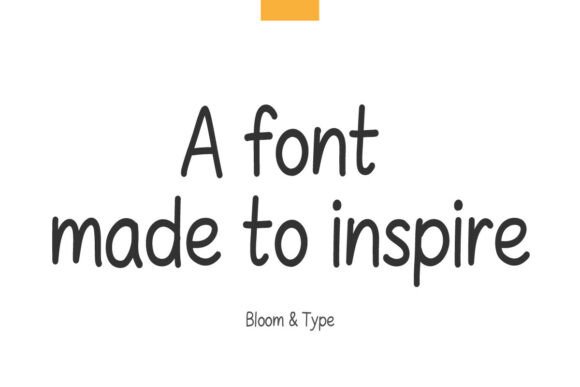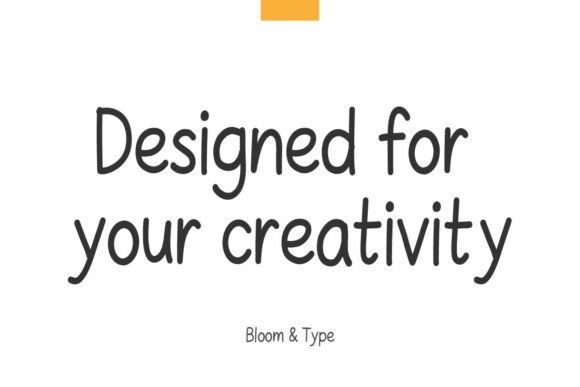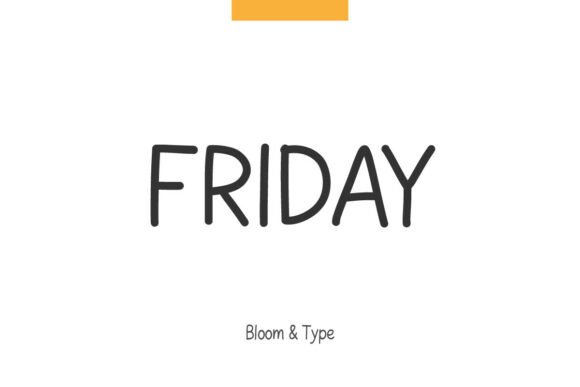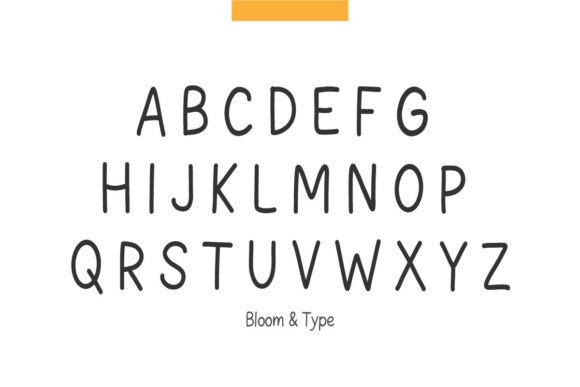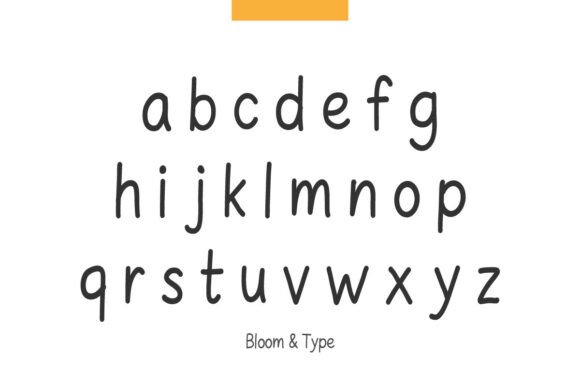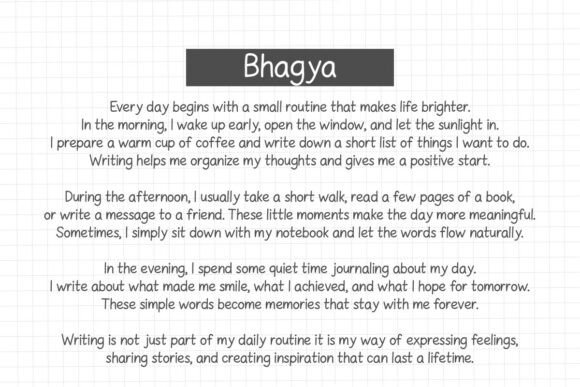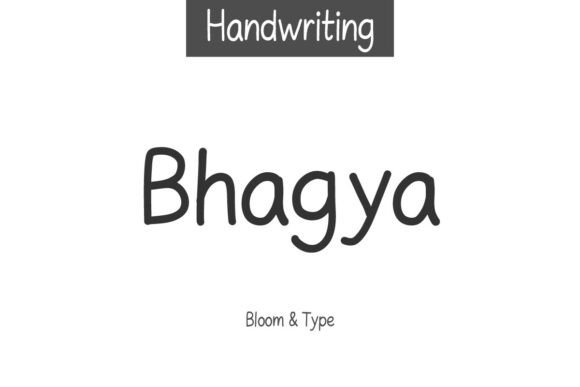
Bhagya Font: Elevate Your Designs with a Charming Handwritten Touch
In the world of typography, fonts play a crucial role in shaping the visual identity of a brand or creative project. Among the myriad of fonts available, Bhagya stands out as a charming handwritten font that infuses warmth, friendliness, and creativity into any design. With its smooth curves and clean lines, Bhagya strikes a perfect balance between playfulness and modern simplicity, making it an ideal choice for both personal and professional projects.
The Unique Charm of Bhagya Font
Bhagya’s casual handwritten style is its most distinctive feature. This font adds a human touch to your words, making them feel approachable and inspiring. The smooth curves and clean lines not only give Bhagya a modern appeal but also ensure that it remains highly legible across various applications. Whether you’re designing a logo, crafting social media posts, or creating packaging, Bhagya brings a level of warmth and personality that sets your work apart.
One of the key advantages of Bhagya font is its versatility. Its unique blend of playfulness and simplicity makes it suitable for a wide range of design projects. Here are some ways you can use Bhagya to elevate your designs:
- Logos: Create memorable and friendly logos that resonate with your audience.
- Social Media Posts: Add a personal touch to your social media content, making it more engaging and relatable.
- Packaging: Enhance your product packaging with a font that communicates warmth and approachability.
- Digital Content: Use Bhagya to make your blog posts, articles, and website content more inviting and reader-friendly.
Bhagya in Branding and Marketing
In branding and marketing, the right font can significantly impact how your message is perceived. Bhagya font offers a unique opportunity to inject personality into your brand’s visual identity. Its friendly and approachable vibe makes it perfect for brands looking to connect with their audience on a more personal level. By using Bhagya, you can:
- Enhance brand recognition through consistent and distinctive typography.
- Create a cohesive brand image that reflects your values and personality.
- Stand out in a crowded market with a font that is both modern and charming.
Why Choose Bhagya Font?
Choosing Bhagya font for your design projects comes with several benefits:
- Effortless Functionality: Bhagya combines functionality with personality, ensuring that your designs are both effective and aesthetically pleasing.
- Wide Applicability: From branding and headlines to digital content and packaging, Bhagya’s versatility knows no bounds.
- Emotional Connection: The font’s friendly and approachable nature helps create an emotional connection with your audience.
Bhagya font is more than just a typeface; it’s a design companion that brings warmth, creativity, and personality to your projects. Its unique blend of playfulness and modern simplicity, coupled with its versatility and wide applicability, makes it an invaluable asset for designers and crafters. Whether you’re looking to elevate your brand’s visual identity, create engaging social media content, or simply add a personal touch to your designs, Bhagya font is the perfect choice. Embrace Bhagya in your creative endeavors and watch your designs come alive with a charming handwritten touch.
With Bhagya font, you’re not just selecting a typeface; you’re embracing a design philosophy that values warmth, friendliness, and creativity. Join the ranks of designers and crafters who have already discovered the power of Bhagya and see how it can transform your projects into visually stunning and emotionally resonant experiences.